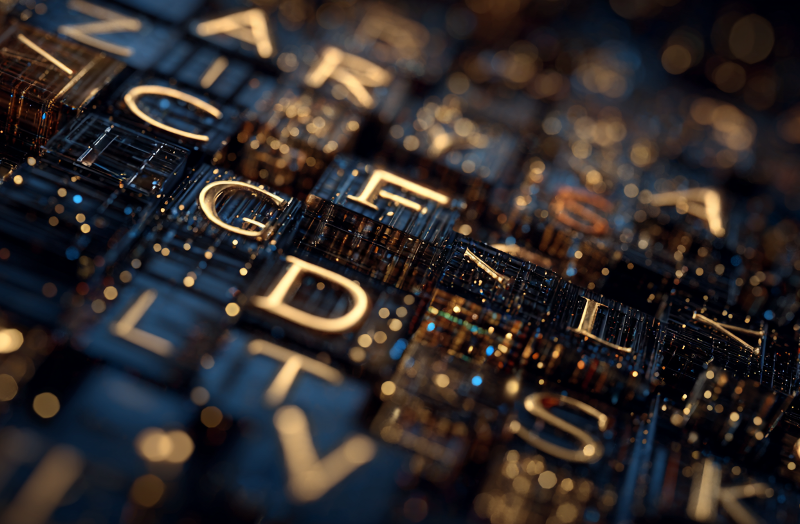
Typography Psychology: How Fonts Build Trust on Casino Websites
When players talk about the “look and feel” of an online casino, most people immediately think of flashing neon lights, spinning roulette wheels, and high-definition game thumbnails. But a subtle architect is working behind the scenes to determine whether a player stays to make a deposit or hits the “back” button in seconds: typography.
In the high-stakes world of digital gambling, trust is the primary currency. Before a player even looks at the game selection or the bonus offers, their brain is subconsciously processing the font choices. Typography isn’t just about making words legible; it does a lot to convey authority, security, and excitement.
The Science of “Processing Fluency”
In psychology, “processing fluency” refers to the ease with which our brains process information. When a casino website uses clean, well-spaced typography, the player’s brain processes the information effortlessly. This lack of “cognitive friction” translates directly into a feeling of comfort and safety.
Conversely, if a site uses overly decorative, cramped, or clashing fonts, the brain has to work harder. This “disfluency” often creates an instinctive sense of unease or distrust, even if the player can’t quite put their finger on why. For a casino review site like https://pl.polskiesloty.com/europejskie-kasyna-online/, selecting the right typefaces is a crucial step in establishing that initial bridge of credibility.
The Language of Modern Security
When you browse the most successful European online casinos, you will notice a recurring theme: the heavy use of Sans-Serif fonts (like Roboto, Open Sans, or Montserrat). There is a psychological reason for this:
• Clarity and Transparency: Sans-serif fonts lack the “decorative feet” (serifs) at the ends of letters, making them look streamlined and honest. In an industry where “hidden terms” are a major fear for players, a clean font suggests that the operator has nothing to hide.
• Mobile-First Stability: Most players now gamble on mobile devices. Sans-serif fonts maintain their integrity at small sizes and low resolutions, ensuring that vital information such as withdrawal limits or wagering requirements remains perfectly legible.
• A “Tech-Forward” Vibe: These fonts are associated with modern tech giants (Google, Apple). By adopting a similar typographic style, casinos borrow some of that established “big tech” reliability.
The Role of Serif Fonts
While Sans-Serif dominates the body text, you will often see Serif fonts (like Playfair Display or Georgia) used in headers or “VIP” sections. Serifs carry a different psychological weight:
• Authority and Tradition: Serifs are associated with print journalism (The New York Times) and traditional banking.
• The High-Roller Experience: For casinos aiming for a “Monte Carlo” or luxury aesthetic, serifs provide a sense of prestige. They tell the player, “This is an established institution with a long history,” which is a powerful trust signal for those looking to wager larger sums.
Typography Hierarchy and Trust
Trust is also built through the hierarchy of text. A professional casino website uses typography to guide the eye. If the “Bonus Terms” are written in a microscopic, light-gray font while the “Deposit Now” button is in a massive, bold typeface, the player’s “scam radar” goes off.
To build genuine trust, reputable sites use:
1. Bold, Clear Headers: To clearly label different sections.
2. Generous Line Spacing: To prevent the “wall of text” effect that makes legal disclosures look intimidating.
3. High Contrast: Ensuring text is dark enough against the background (or light enough in Dark Mode) to be read without squinting.
Color Psychology Meets Type
The color of the font is just as important as the shape. On many European platforms, you’ll see gold or white text on a deep blue or black background.
• Gold Typography: Suggests wealth, winning, and premium service.
• White on Dark: Provides the highest legibility and reduces eye strain during long sessions, signaling that the casino cares about the user’s physical comfort.
Avoid the “Amateur” Pitfalls
Nothing kills trust faster than font chaos. When a website uses four or five different font families, it looks disorganized and amateurish. In the gambling world, disorganized is often interpreted as unregulated.
A trustworthy site usually sticks to a maximum of two font families: one for headings and one for body text. This consistency creates a unified brand identity that feels stable and professional.
More Than Just Letters
In the end, typography is the “tone of voice” of a website. A casino can claim to be the most secure platform in the world, but if its “tone of voice” ( font) feels shaky, outdated, or aggressive, players will go elsewhere.
By understanding the psychology behind font choice, i.e., prioritizing legibility, choosing the right “personality” for the brand, and maintaining a clean visual hierarchy, online casinos build a foundation of trust before a single card is dealt or a single reel is spun. For the discerning player, the font isn’t just a design choice but a promise of professionalism.